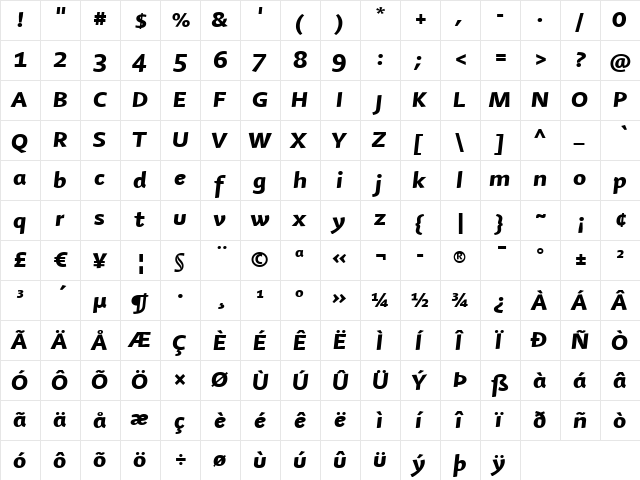
Shaker Regular
| Foundry | Copr. Jeremy Tankard |
Design Context for Shaker Typeface
Shaker takes a measured approach to typography — its balanced proportions and neutral character make it a reliable workhorse for both digital and print work.